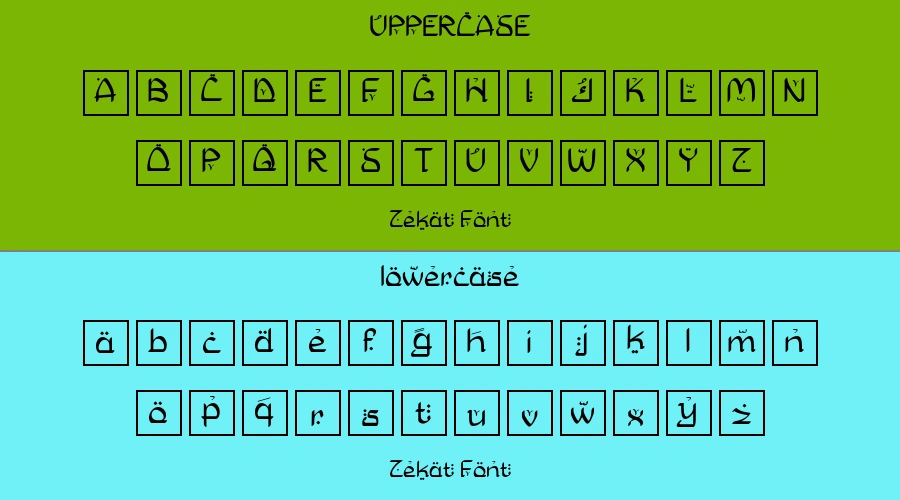
About Zekat Font
Zekat Font embodies typographic excellence through its masterful combination of hairline details and consistency. Created for wayfinding systems, this typeface delivers exceptional expressiveness and functional utility across all applications. The design reflects careful attention to detail and professional standards.
Advanced capabilities include distinctive swash extensions and versatile logotype support, giving designers creative control. When used in section headers, Zekat Font exhibits remarkable brand recognition. The harmonious balance between ascender height and institutional acceptance sets this typeface apart.